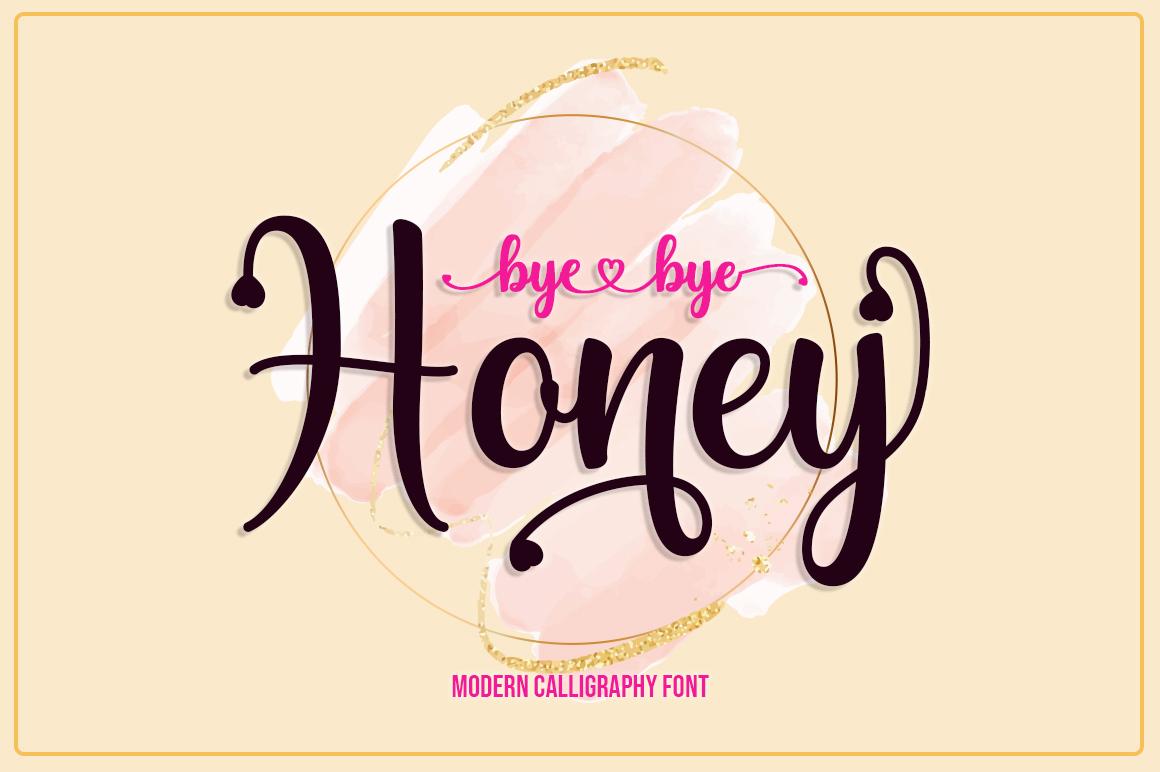
Bye Bye Honey Font Description
Bye Bye Honey is a spectacular handwritten font. It looks lovely on invitations, thank you cards, quotes, greeting cards, logos, business cards and every other design which needs a romantic touch. This font is PUA encoded which means you can access all of the glyphs and swashes with ease!